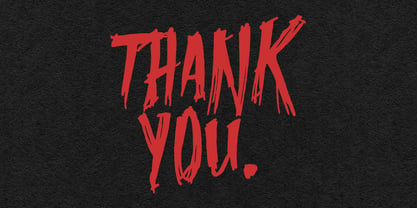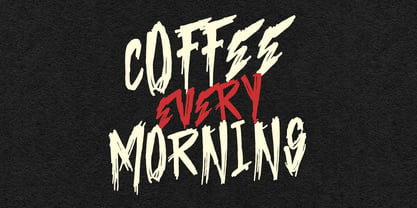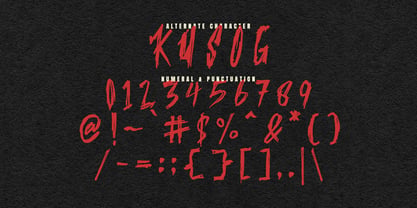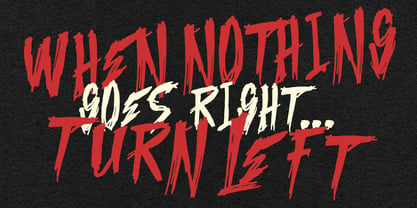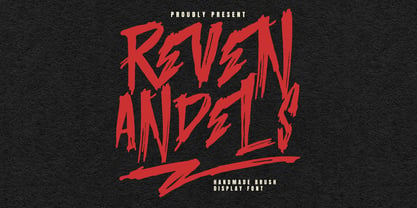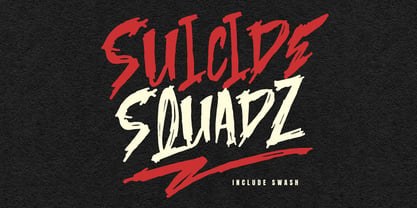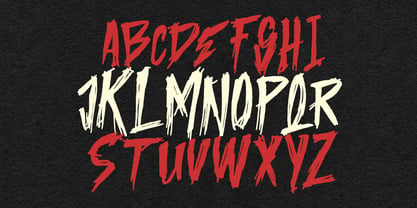
MC Reven Andels
by Maulana Creative
The MC Reven Andels Font Family was designed by Gilang Maulana and published by Maulana Creative. MC Reven Andels contains 1 styles. More about this family
Give your designs an authentic brush handcrafted feel. "Reven Andels Brush Font" is perfectly suited to signature, stationery, logo, typography quotes, magazine or book cover, website header, flyer, clothing, branding, packaging design and more.
Designers: Gilang Maulana
Foundry: Maulana Creative